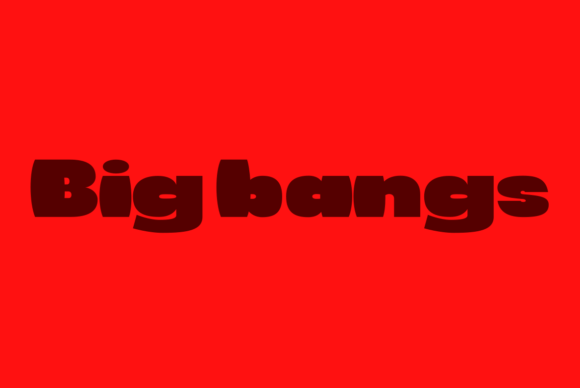
Unlocking Creativity with Big Bangs Font
Have you ever stumbled upon a font that just makes you want to create? For designers, that moment of discovery can be a game-changer. It’s like stumbling upon a hidden treasure trove of inspiration, and for many, it happened when they discovered the Big Bangs Font.
This fun and chunky lettered display font is perfect for adding a touch of joy to any design. Whether you’re working on a cartoon-related project, designing a children’s game, or simply looking for a font to make your title stand out, Big Bangs Font is an excellent choice. Its unique style and playful feel make it a valuable asset for designers looking to add some personality to their work.
Big Bangs Font Key Features
- Font Family: Big Bangs Font is a unique display font with 4 different font styles: Regular, Bold, Italic, and Bold Italic.
- Character Count: The font contains over 250 characters, including uppercase and lowercase letters, numbers, punctuation, and special characters.
- Unique Characteristics: Big Bangs Font features a dynamic, explosive design with bold lines and vibrant shapes, perfect for making a statement in headings and titles.
Designer Review: Big Bangs Font
Overall, I think Big Bangs Font is an interesting choice for designers looking to add a dynamic touch to their projects. ✨ Here are some things that work well:
- Unconventional look: Big Bangs Font offers a unique, hand-drawn feel that can help projects stand out.
- Wide character set: The font includes a wide range of characters, including punctuation and special symbols.
- High-resolution support: Big Bangs Font looks great at high resolutions, making it suitable for large-scale designs.
- Font weight limitations: The font only comes in a single weight, which may limit its usability in certain contexts.
- Lack of italics and bold: The font does not include italics or bold versions, which may be a drawback for some designers.
- Not suitable for small text: The font’s unique style can make it difficult to read in small sizes.
Overall, I think Big Bangs Font is a solid choice for designers who want to add a touch of personality to their projects. However, it’s not suitable for every project, and designers should carefully consider its limitations before using it.
The Big Bangs font is ideal for creating eye-catching headlines, titles, and logos. To get the most out of it, use it sparingly and pair it with a clean, simple font for body text.
- Graphic design projects, such as brochures, posters, and social media graphics.
- Logo design and branding.
- Advertising and marketing materials, such as flyers and business cards.